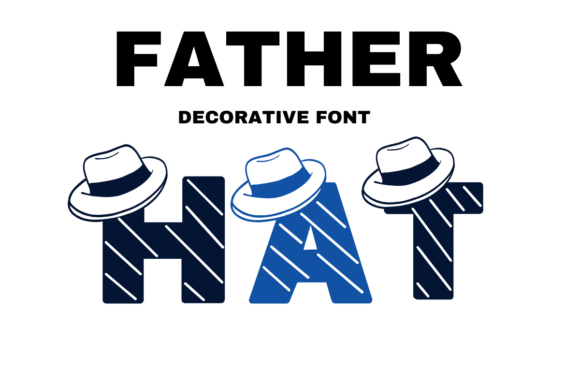
Introducing Father Hat Font: The Perfect Addition to Your Father’s Day Designs
Are you looking for a unique and playful font to make your Father’s Day designs stand out? Look no further than the Father Hat Font. This charming decorative font features stylish hats integrated into letterforms, making it the perfect addition to your greeting cards, kids’ projects, and whimsical branding.
What is Father Hat Font?
Father Hat Font is a decorative font that combines playful and charming elements, featuring stylish hats integrated into letterforms. The font is designed to add a touch of whimsy and fun to your designs, making it ideal for Father’s Day designs, greeting cards, kids’ projects, and whimsical branding.
Key Features of Father Hat Font
- Playful and charming design: The font features stylish hats integrated into letterforms, giving it a unique and playful touch.
- Decorative and whimsical: The font is perfect for adding a touch of whimsy and fun to your designs.
- Ideal for Father’s Day designs: The font is specifically designed for Father’s Day designs, making it the perfect choice for greeting cards, posters, and other promotional materials.
- Suitable for kids’ projects: The font’s playful design makes it suitable for kids’ projects, such as posters, flyers, and worksheets.
- Great for whimsical branding: The font’s unique design makes it perfect for whimsical branding, adding a touch of personality to your brand.
Usage Ideas for Father Hat Font
The Father Hat Font is versatile and can be used in a variety of design projects. Here are some usage ideas to get you started:
- Father’s Day greeting cards: Create personalized greeting cards for Father’s Day with the Father Hat Font.
- Kids’ projects: Use the font in kids’ projects, such as posters, flyers, and worksheets.
- Whimsical branding: Add a touch of personality to your brand with the Father Hat Font.
- Posters and flyers: Use the font in posters and flyers to add a playful touch.
- Social media graphics: Use the font in social media graphics to add a touch of whimsy and fun.
Benefits of Using Father Hat Font
The Father Hat Font offers several benefits, including:
- Unique and playful design: The font’s unique design sets it apart from other fonts, making it perfect for adding a touch of whimsy and fun to your designs.
- Easy to read: Despite its playful design, the font is easy to read, making it perfect for use in a variety of design projects.
- Versatile: The font is versatile and can be used in a variety of design projects, from greeting cards to posters and flyers.
- High-quality: The font is high-quality, ensuring that it looks great in any design project.
Tips for Using Father Hat Font
Here are some tips for using the Father Hat Font:
- Use it in combination with other fonts: Use the Father Hat Font in combination with other fonts to create a unique and visually appealing design.
- Experiment with different colors: Experiment with different colors to find the perfect combination for your design.
- Use it in digital and print designs: The font can be used in both digital and print designs, making it versatile and convenient.
- Pay attention to font size: Pay attention to font size to ensure that the font is easy to read and visually appealing.
The Father Hat Font is a playful and charming decorative font that is perfect for adding a touch of whimsy and fun to your designs. With its unique design, versatility, and high-quality, it’s the perfect choice for Father’s Day designs, greeting cards, kids’ projects, and whimsical branding. By following the tips outlined above, you can create stunning designs that showcase the Father Hat Font.